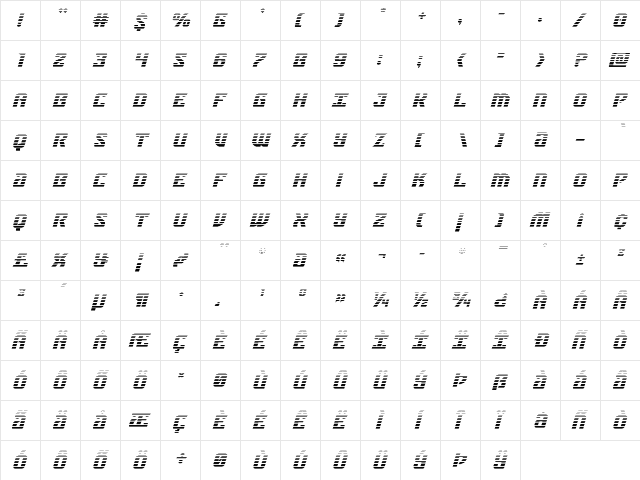
Federal Blue Gradient Italic Italic
Design Context for Federal Blue Gradient Italic Typeface
Federal Blue Gradient Italic takes a measured approach to typography — its balanced proportions and neutral character make it a reliable workhorse for both digital and print work. Its italic angle brings a sense of urgency and motion to the letterforms.
Pro Tip: Try Federal Blue Gradient Italic for annotation and caption copy alongside an upright companion — the contrast in angle creates a dynamic but ordered typographic system.